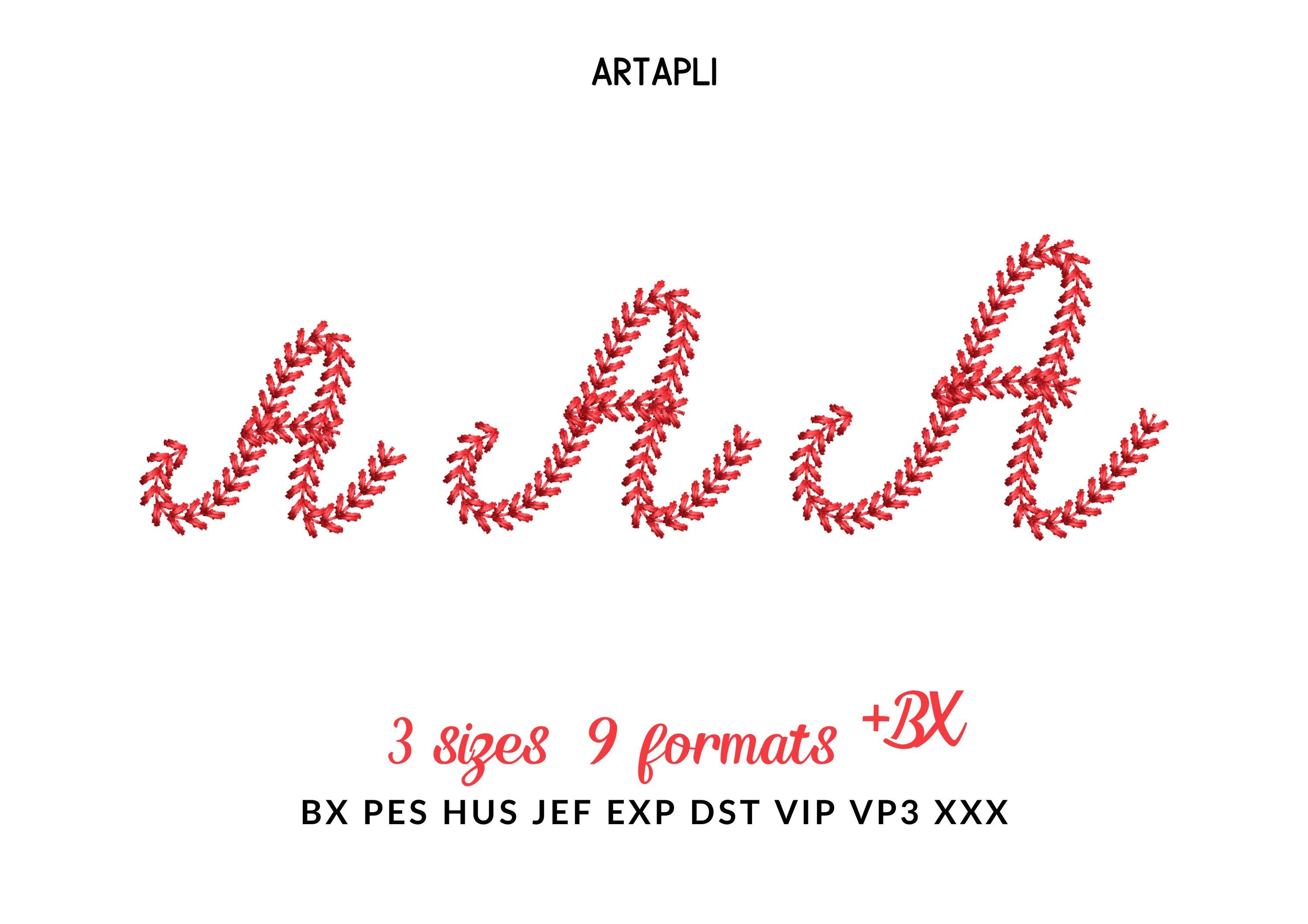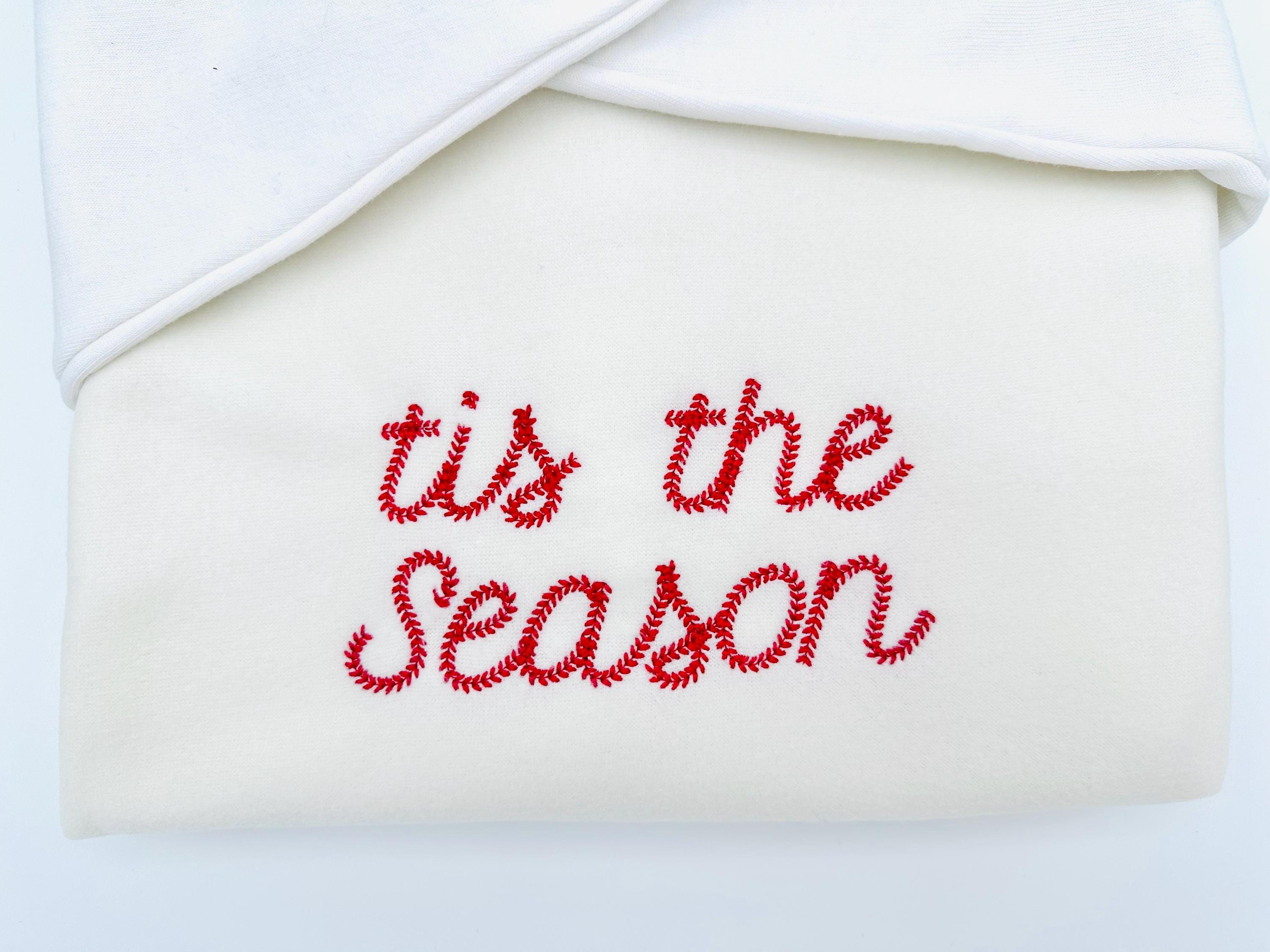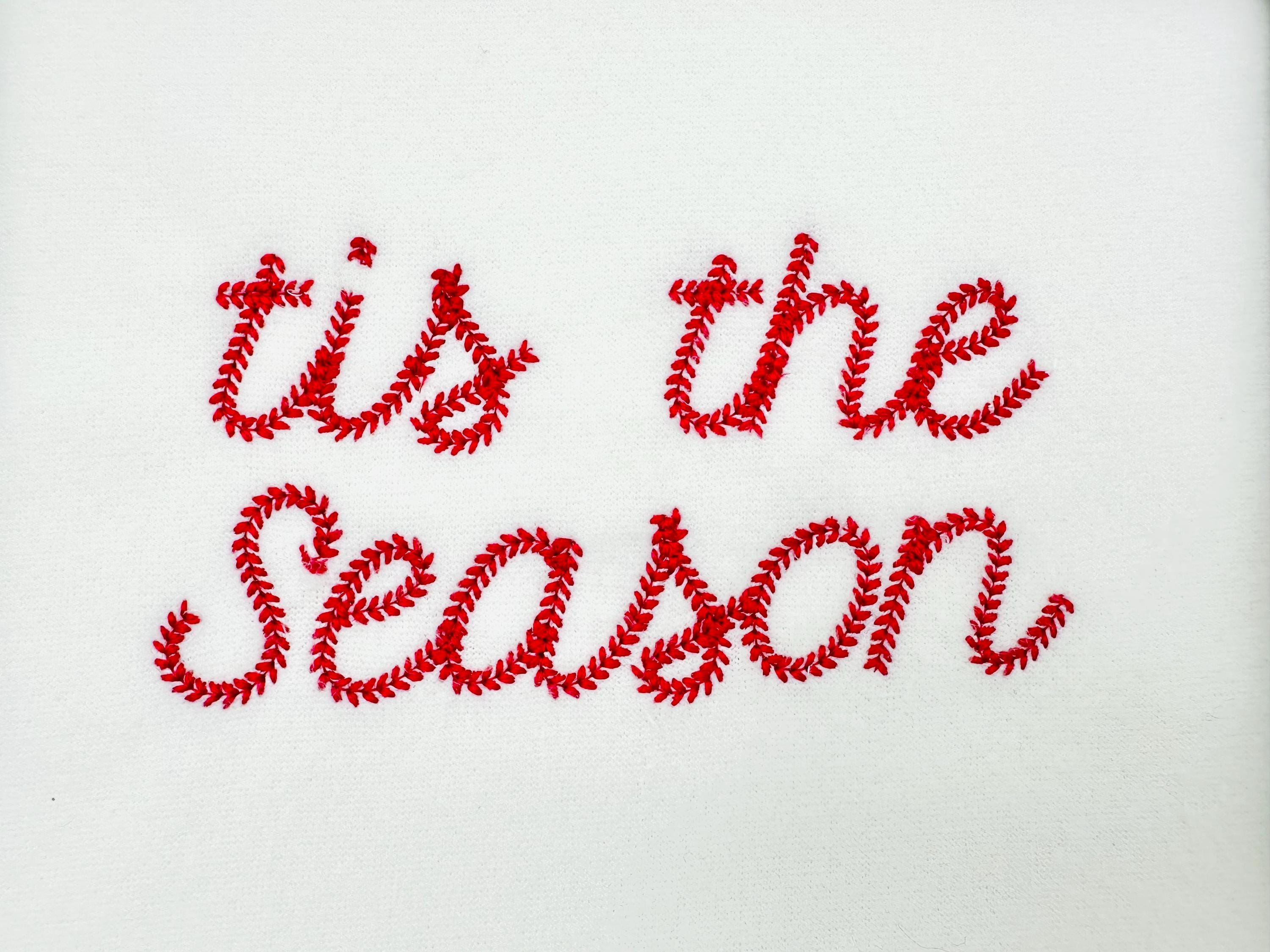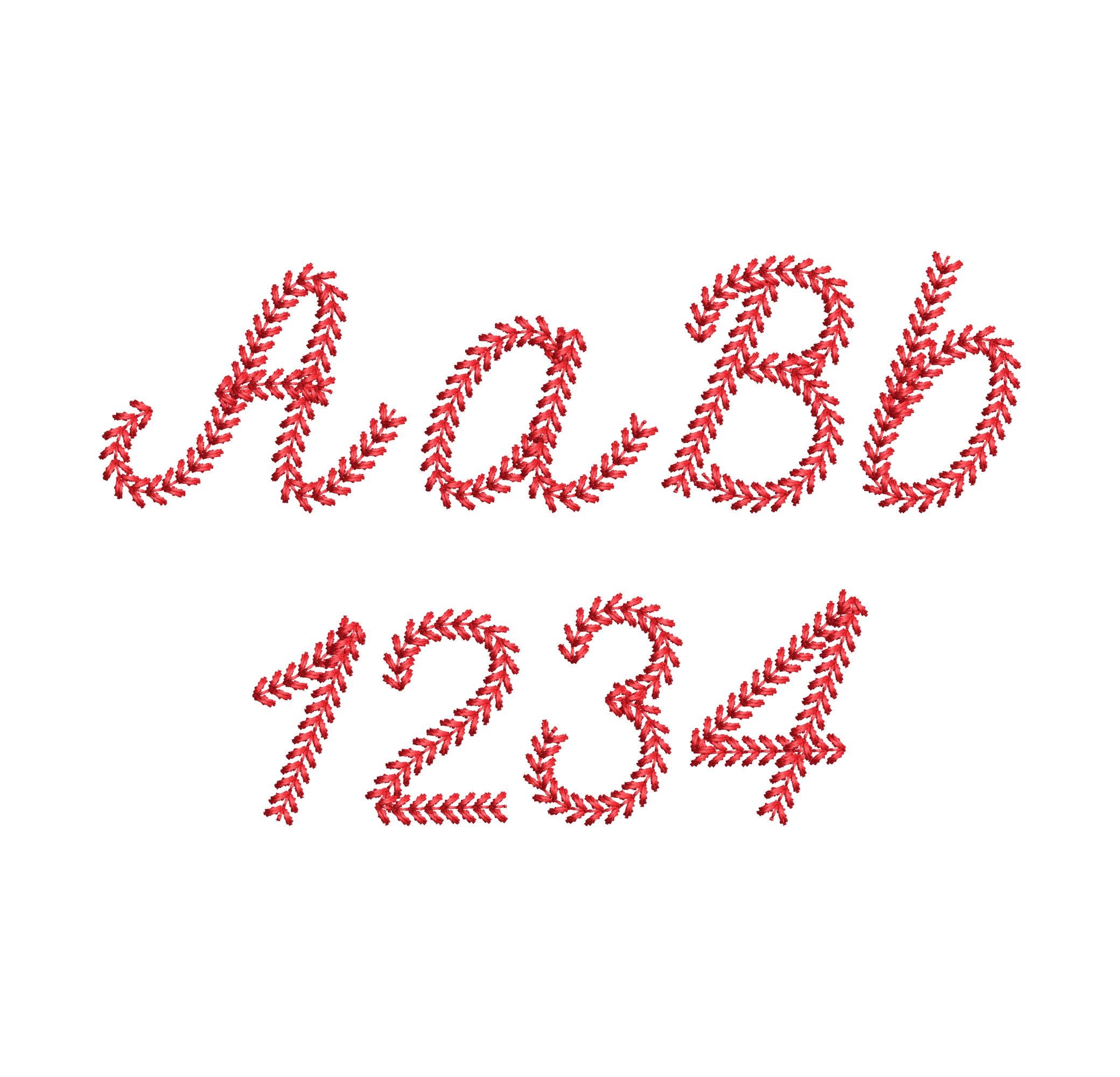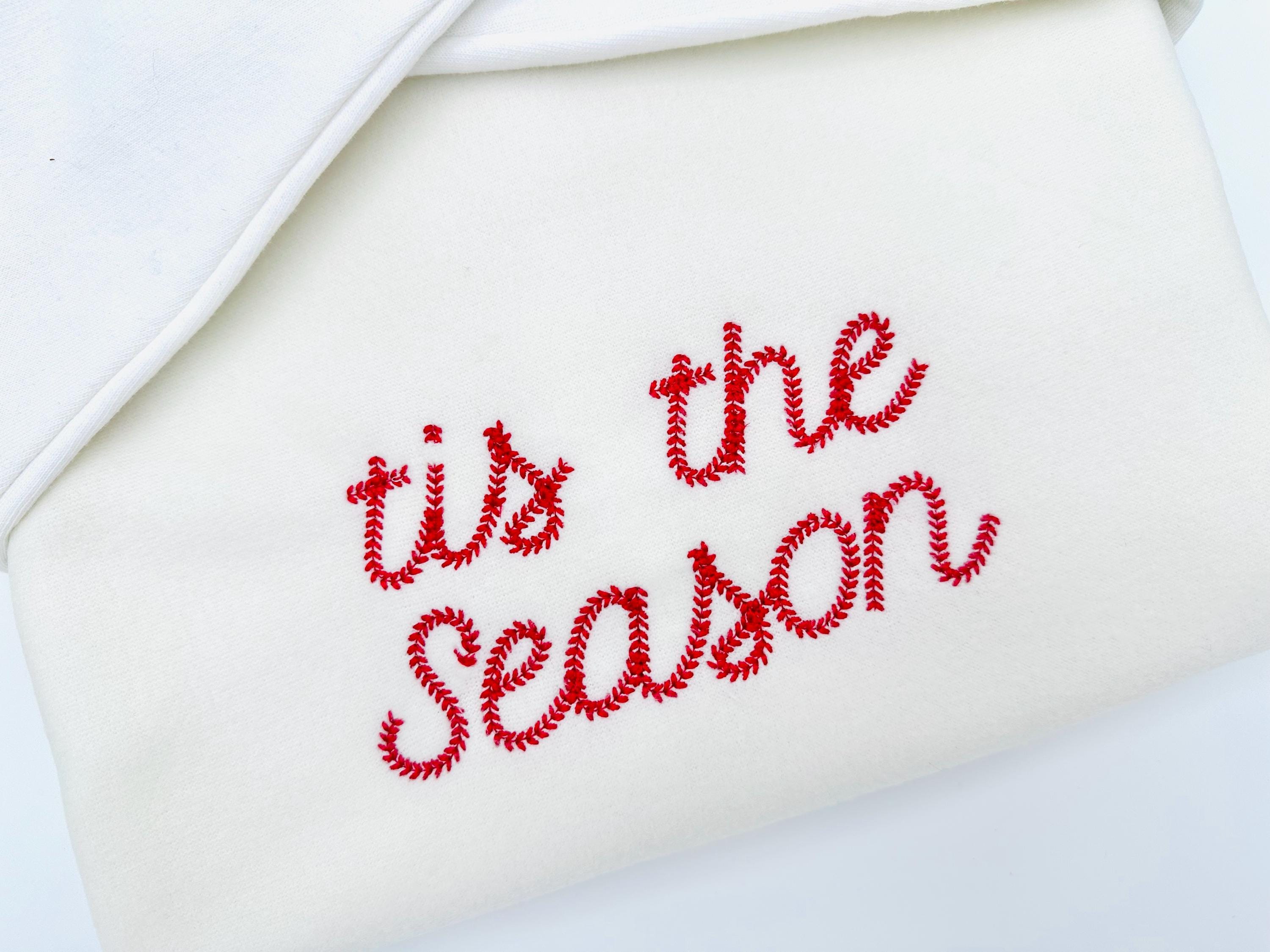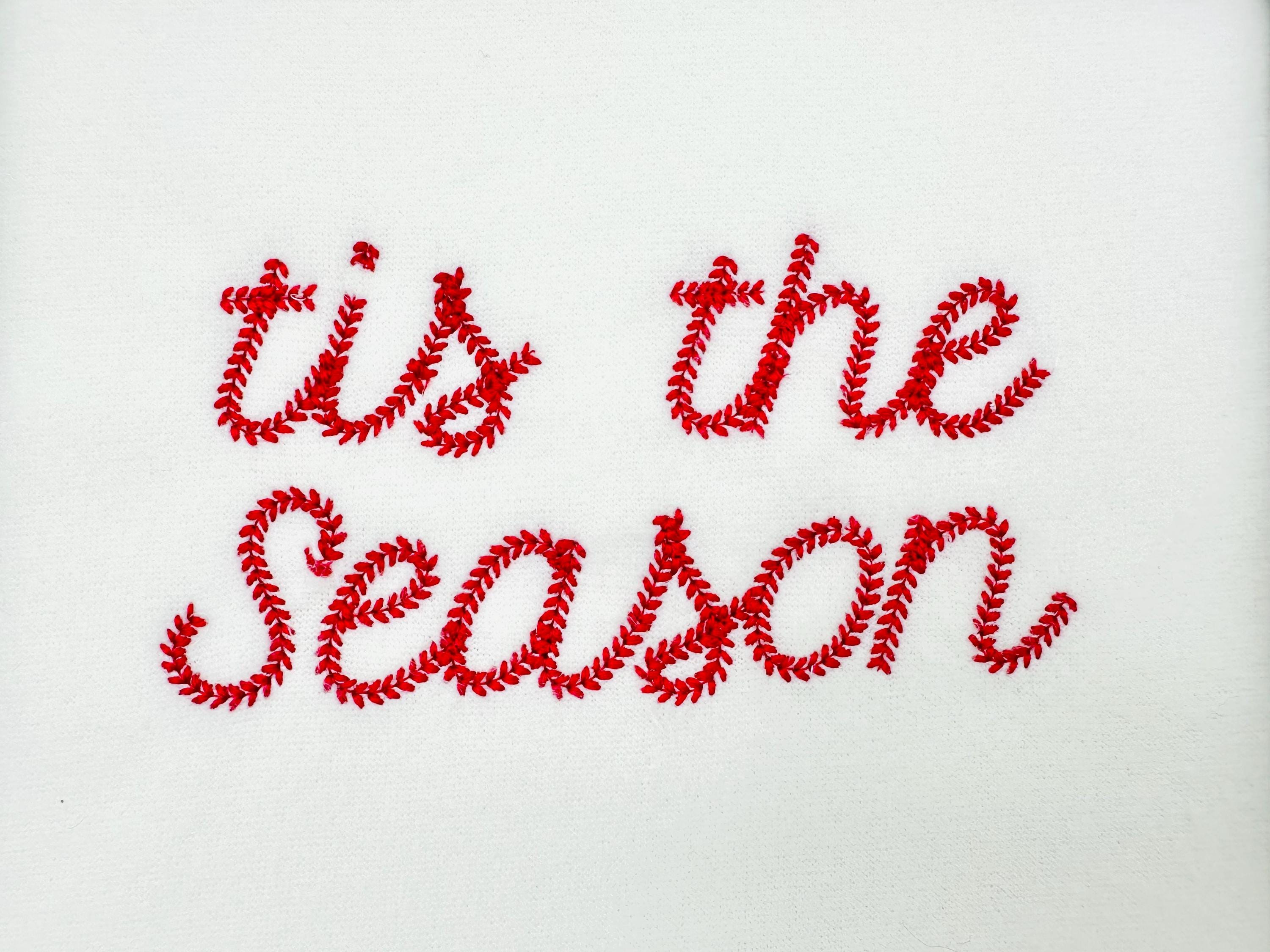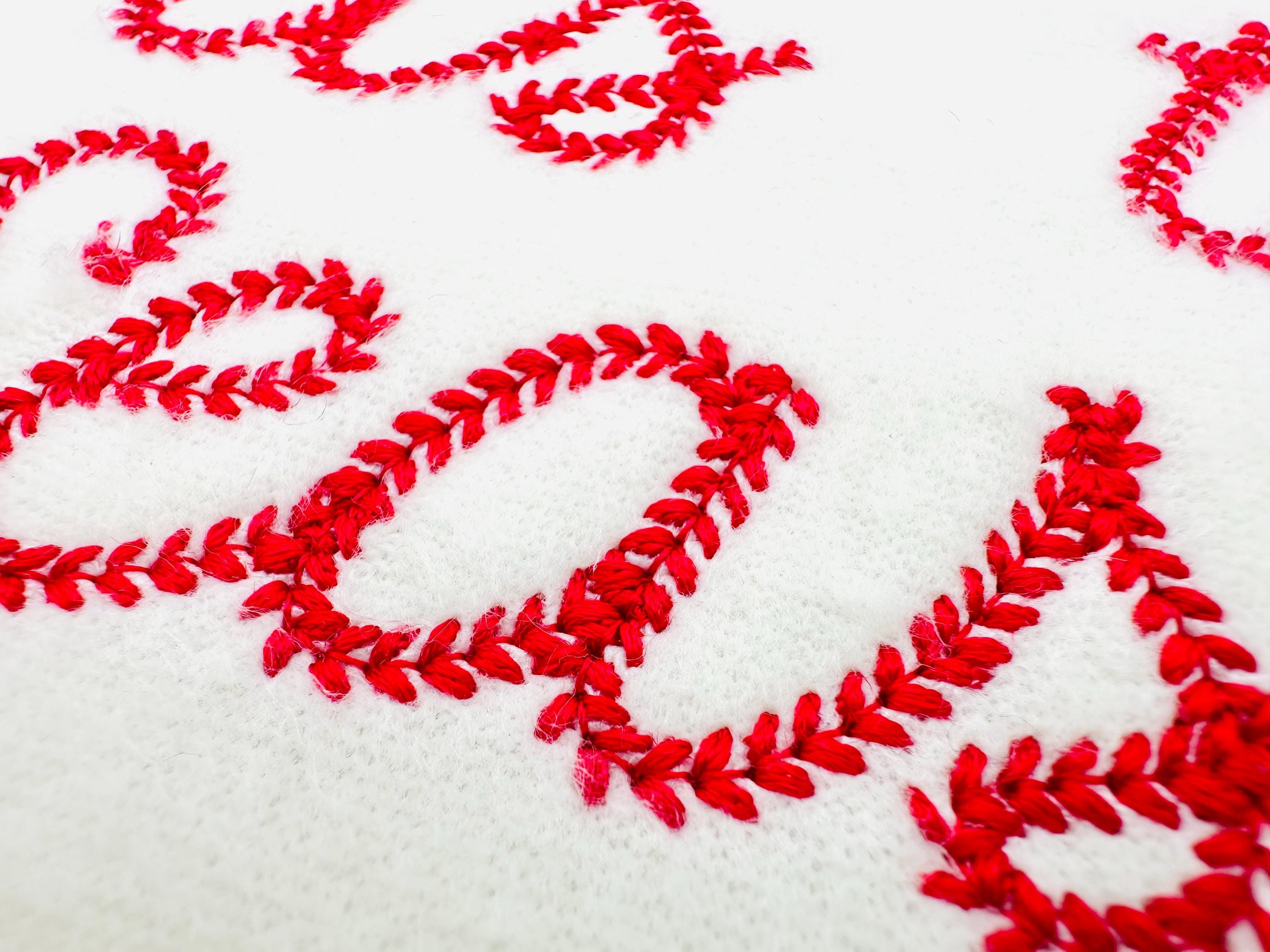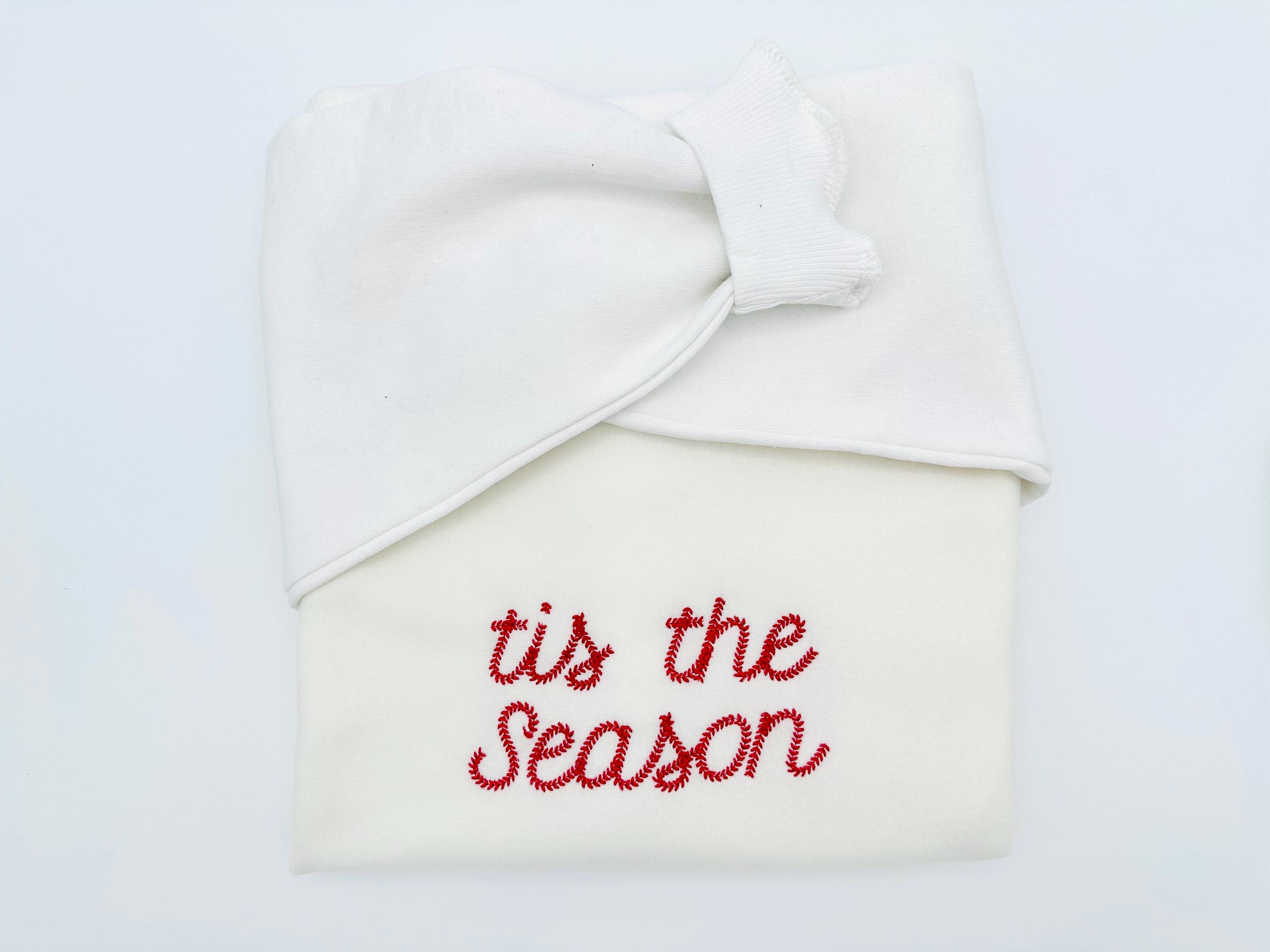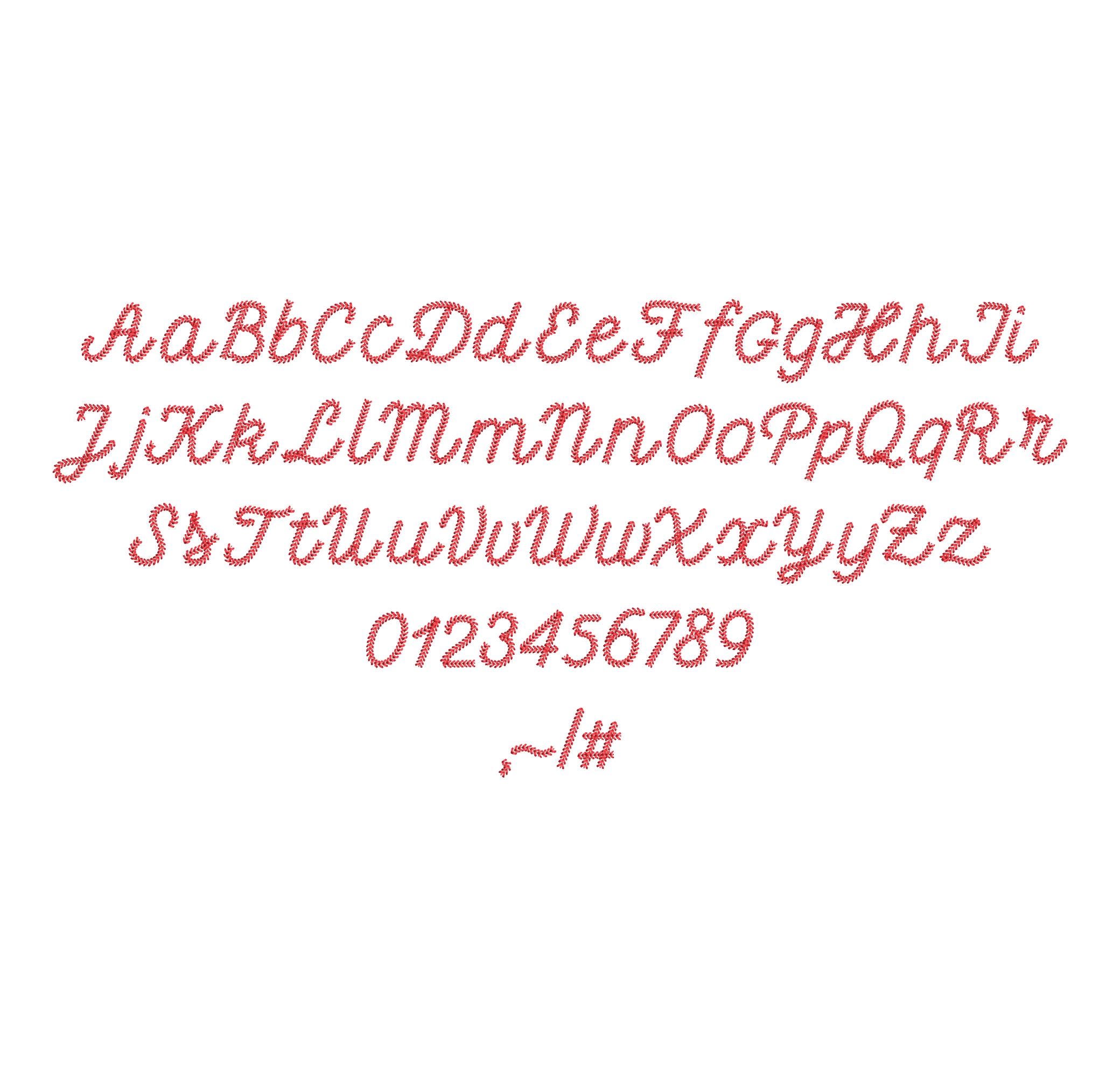
Pepper Baseball FONT sports baseball stitch handwritten script Alphabet Monogram softball machine embroidery designs sizes 1.1 up to 1.6 inch
Entire alphabet uppercase and lowercase letters, numbers, and punctuation.
The baseball stitch design is high quality and so cool.